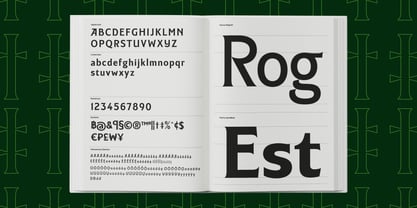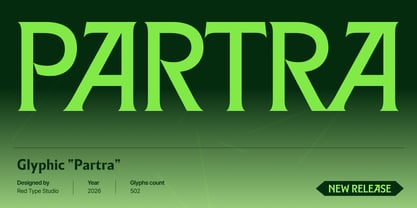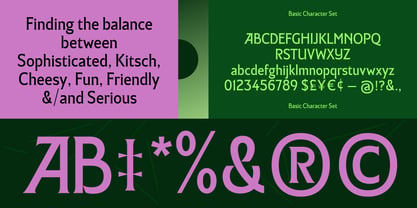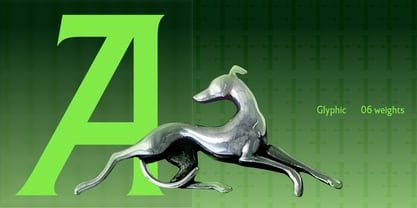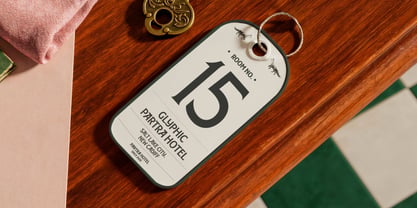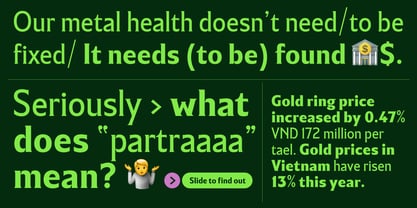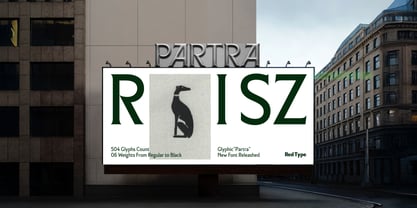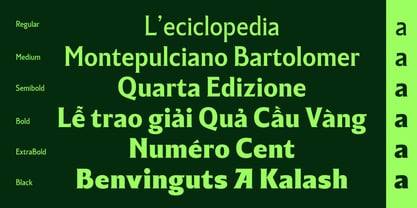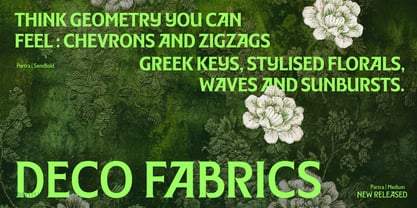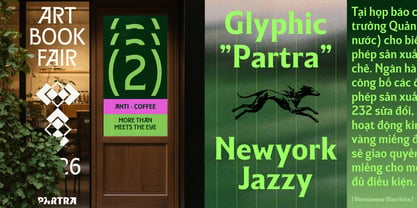
Partra
Partra is a striking six-weight glyphic typeface rooted in tactile geometry and inspired by the intricate patterns of Art Deco fabrics such as chevrons, zigzags, Greek keys, waves, sunbursts, and stylized florals. This expressive family masterfully walks the tightrope between contrasting moods, finding a unique sweet spot between sophisticated and kitsch, serious and friendly, or playful and authoritative. Characterized by sharp, flared terminals and dynamic geometric proportions, Partra delivers a distinctive visual rhythm that makes it an excellent choice for display typography, branding projects, packaging, custom logotypes, and editorial layouts. Spanning six versatile weights from Regular to Black, the family features a comprehensive character set of 502 meticulously crafted glyphs, including full and flawless support for Vietnamese diacritics with custom-designed accents to ensure beautiful and professional typesetting.